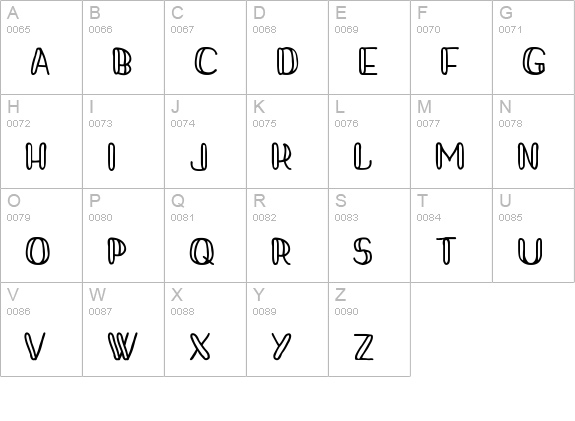
Mandarina is a modern and elegant font that exudes sophistication and charm. With its sleek lines and versatile design, Mandarina is perfect for a wide range of projects, from branding to editorial design. This font features a unique blend of classic and contemporary elements, making it a standout choice for any design endeavor. What sets Mandarina apart is not only its striking aesthetic appeal but also its accessibility. This exquisite font is available for free download at FontsMarket.com, allowing designers and creatives to easily incorporate it into their projects without any cost. Whether you're working on a website, poster, or logo, Mandarina offers a touch of refinement that will elevate your design to the next level. Don't miss out on the opportunity to enhance your creations with Mandarina's timeless elegance. Download this exceptional font today and let your creativity shine!